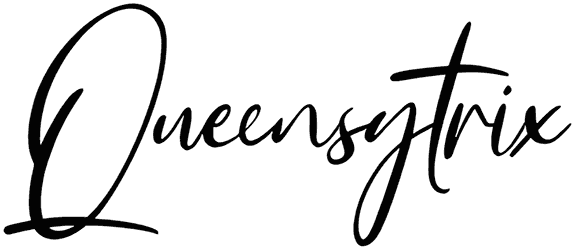
Queensytrix Font
Having a script font such as Queensytrix that comes with a cursive style and strongly impresses the audience would be totally tempting for any graphic designer who craves to create high-end artwork like magazines, business cards, web pages, product packaging, and greeting cards.
Despite the undeniable fact that numbers are not included in this invitation font, it still carries a feeling of precision, delicacy, softness, or dynamic.